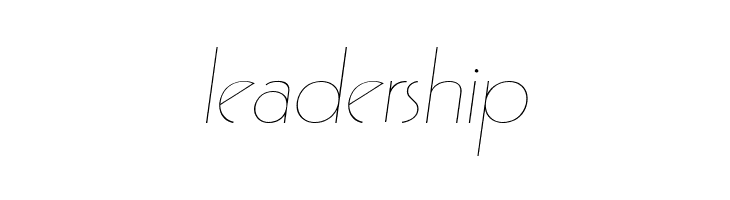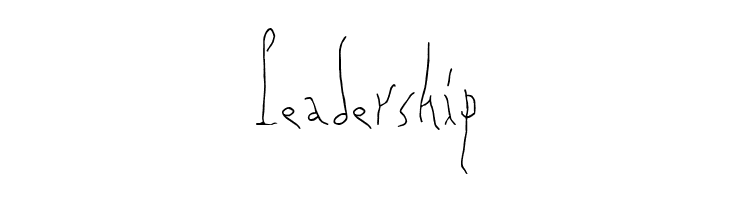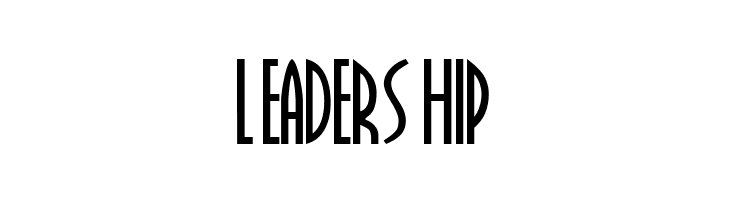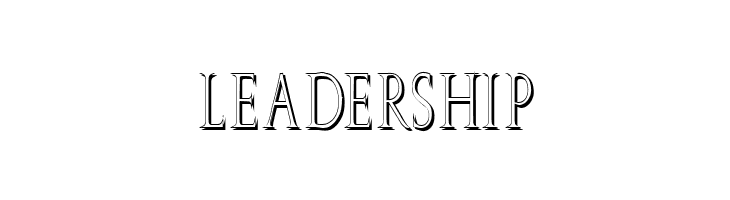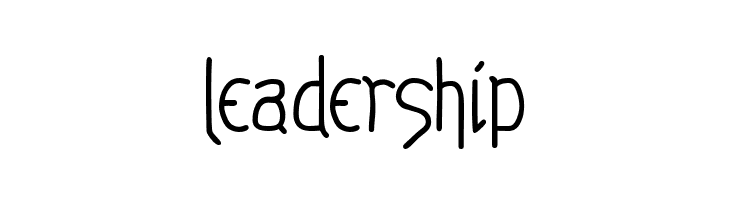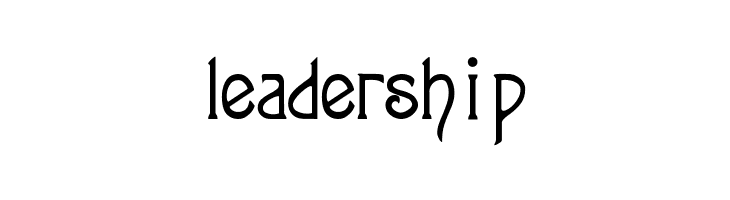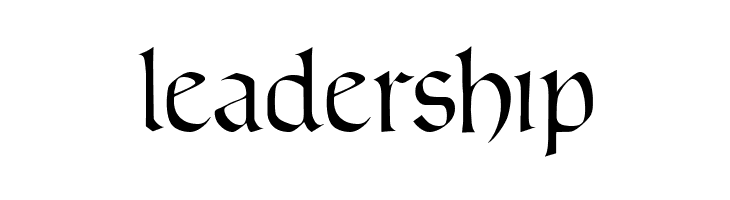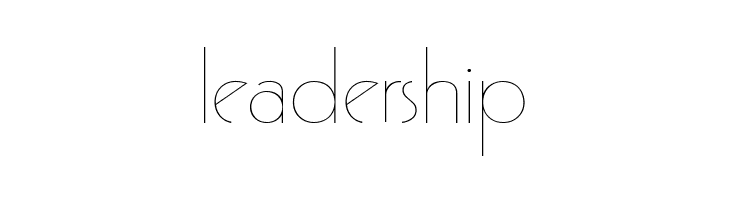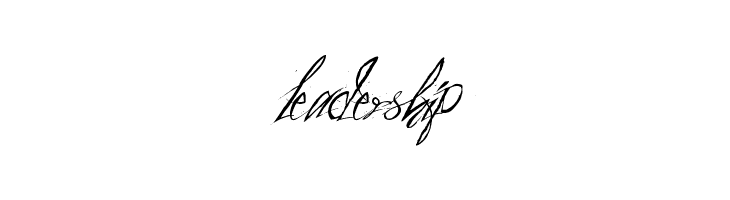
A bold, elongated font with a modern and sophisticated style.
A whimsical, hand-drawn font with elongated, irregular letters.
A whimsical, hand-drawn font with elongated strokes and playful curves.
A playful and artistic font with elongated, curved lines and a modern look.
A gothic-inspired font with elongated, angular letterforms and sharp serifs.
A dramatic, expressive font with sharp, elongated strokes and a dynamic flow.
A modern, geometric font with elongated, narrow letterforms and consistent stroke width.
A modern serif font with elegant, elongated serifs and balanced letterforms.
A spooky, elongated font with a dripping, horror-inspired design.
A decorative font with elongated, angular letterforms and high contrast, inspired by Art Deco.
A modern, sleek script font with elongated, dynamic characters.
A futuristic, elongated font with a sleek, modern design.